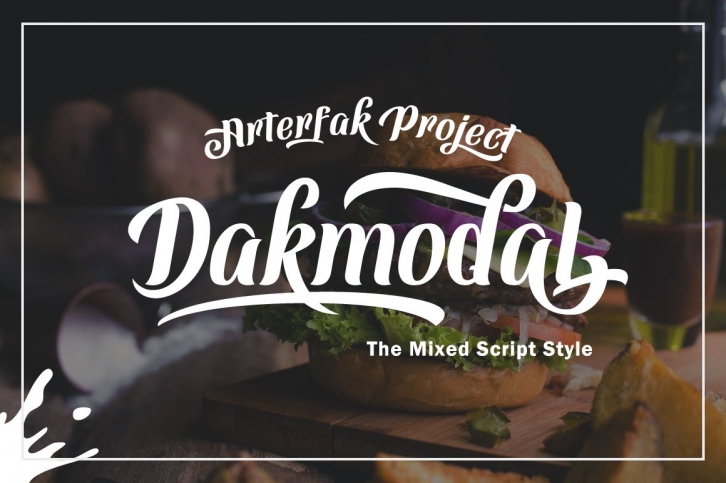
Greetings! Introducing my 2nd script typeface Dakmodal Typeface. Made with combination of some brush lettering styles. Semi-formal with unconnected letters to make it looks flexible. Equipped with basic international language. Recommended for cafe design, Food & beverages, clothing lines, minimalism or freestyle!
• Symbols
• Standard punctuation
• Stylistic alternate
• Some swashes (see the 5th image above to get how to access)
• Basic multilingual